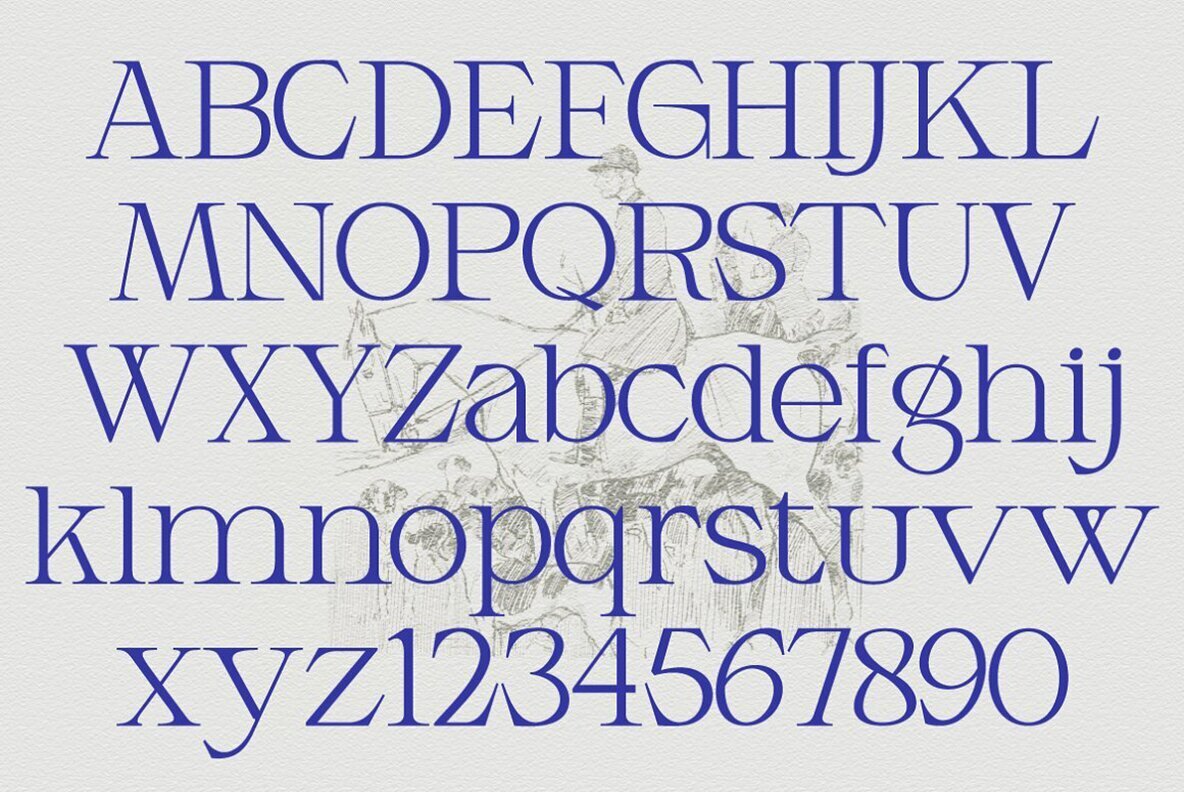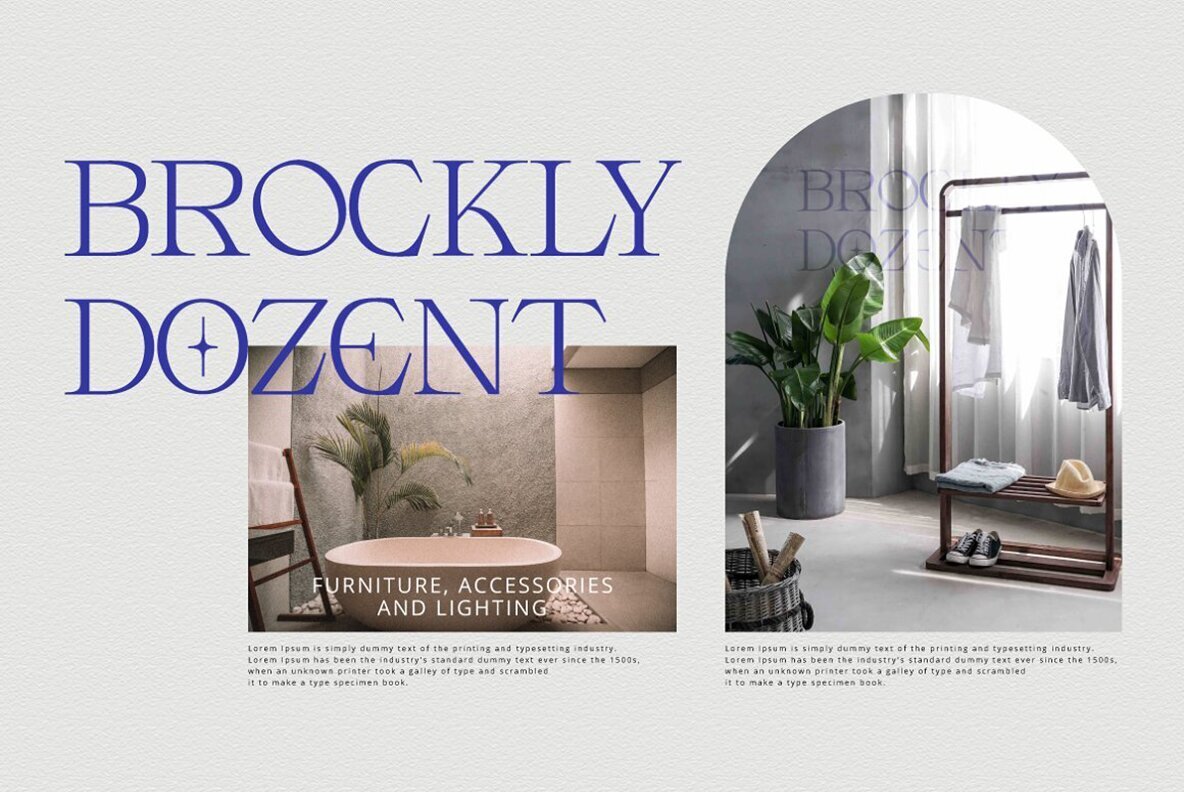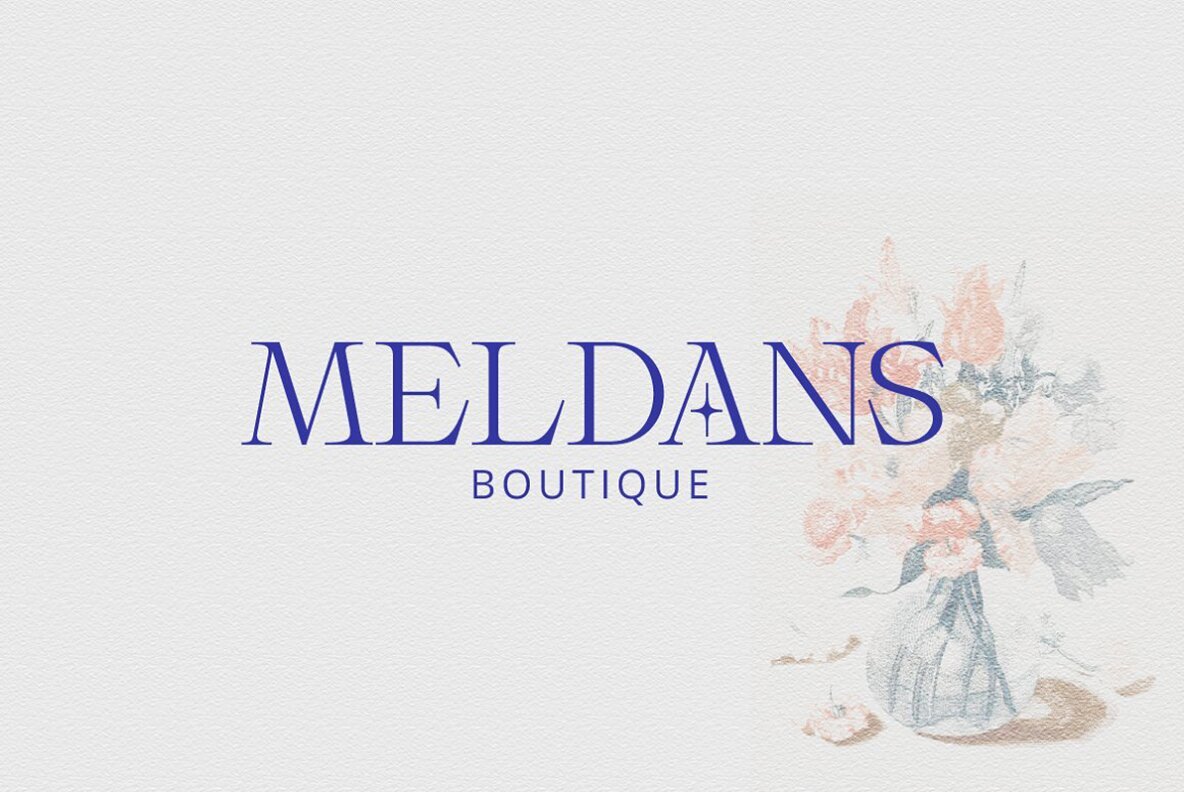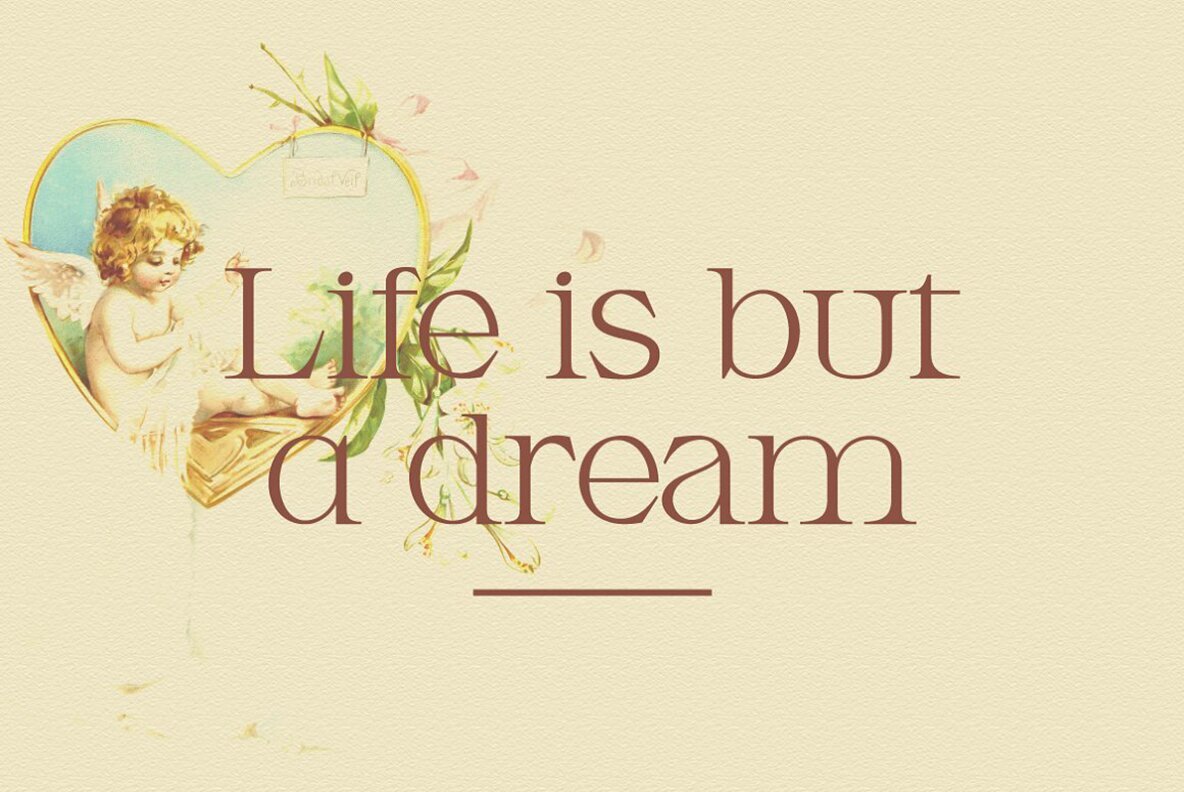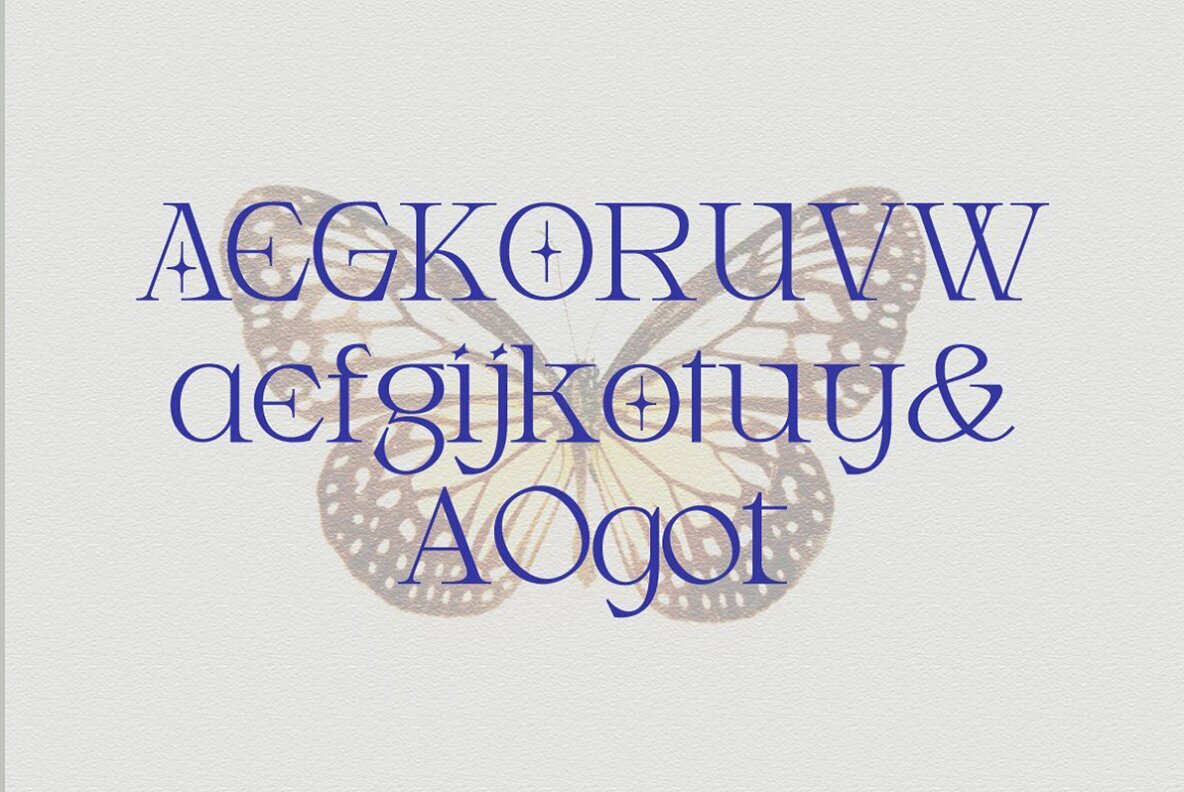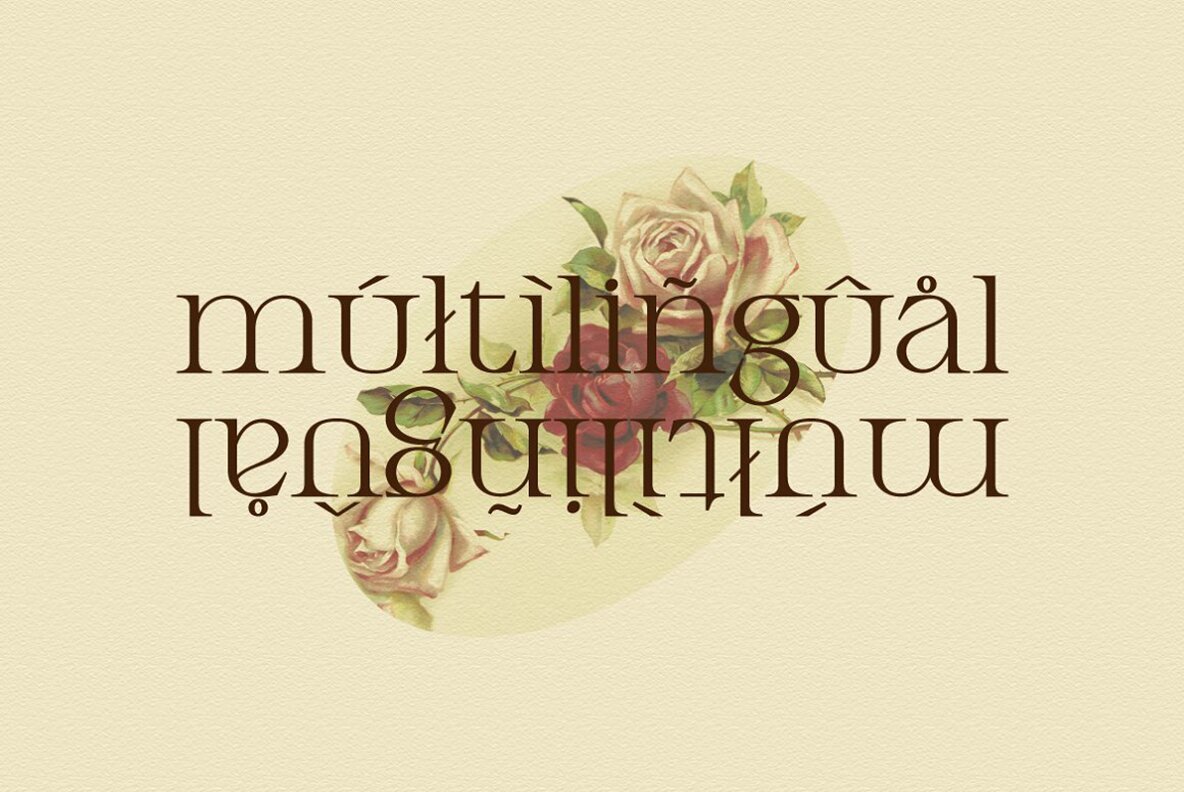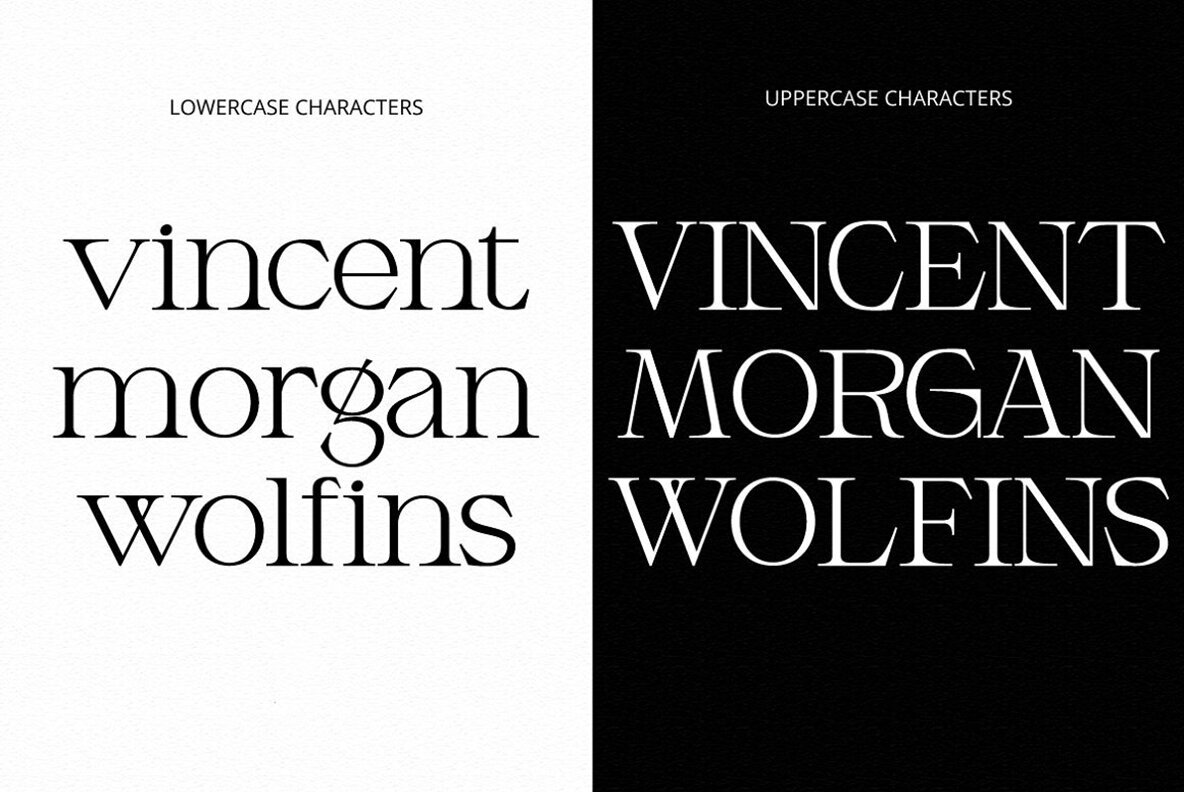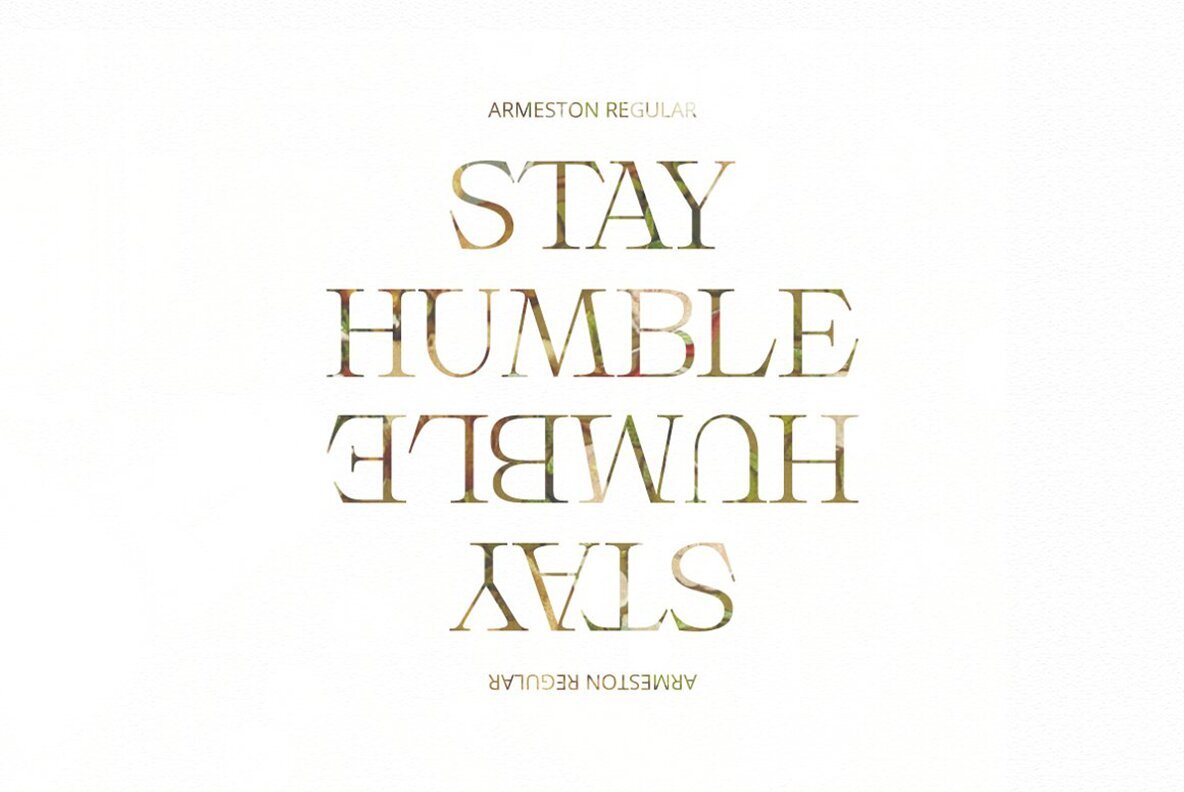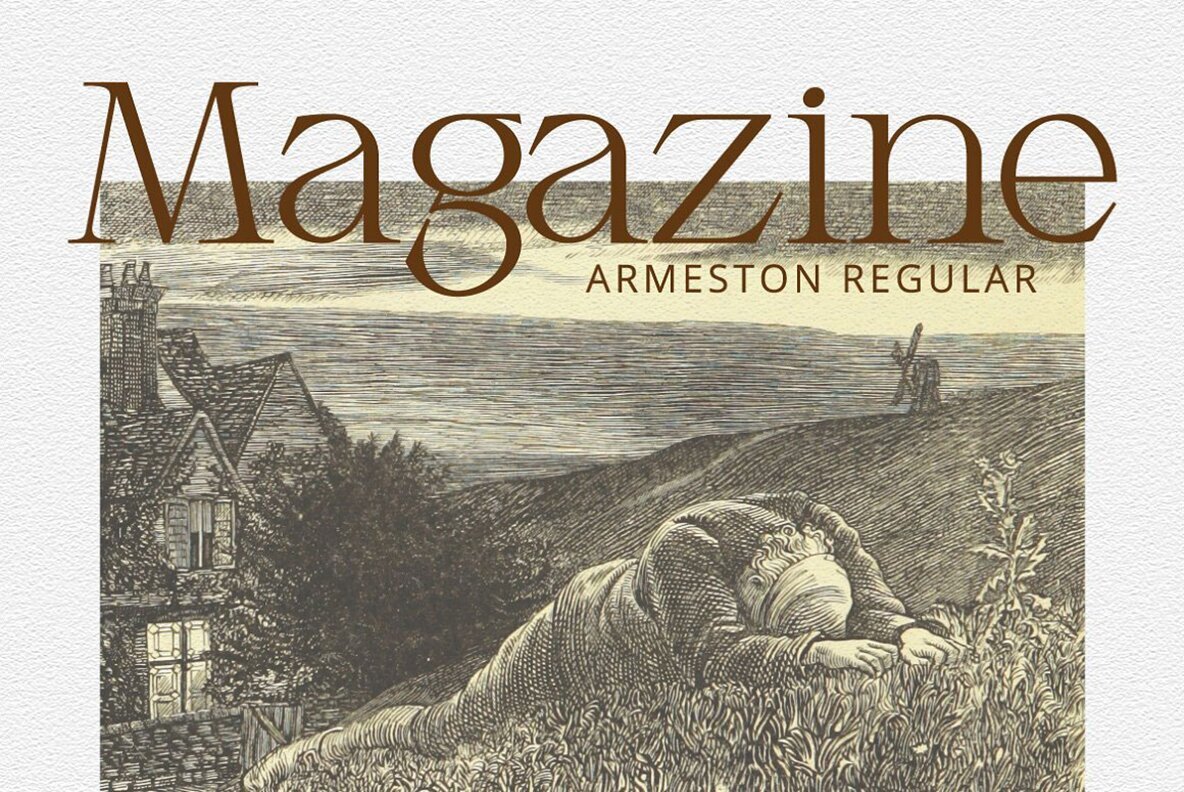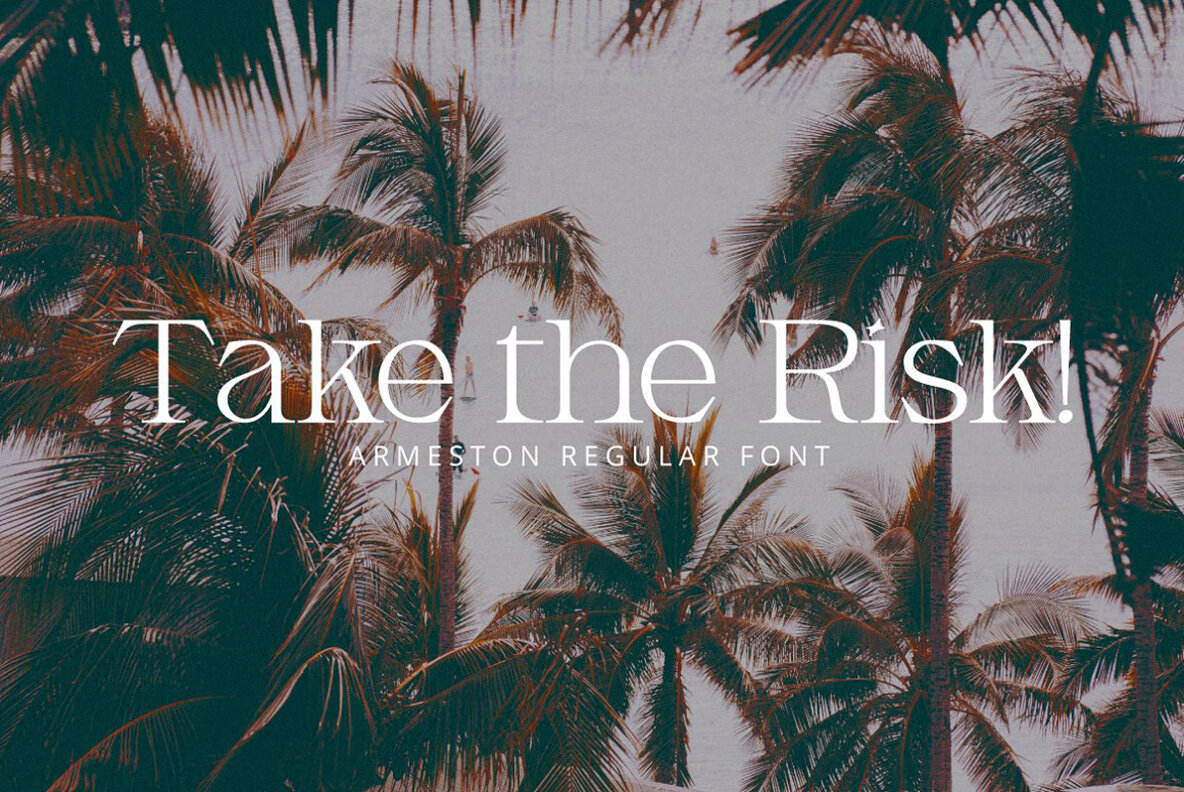
Armeston Font
Armeston Display
With Armeston Display, you're poised to produce stunning typographic designs with ease. It's the ideal choice for adding a sleek touch of luxury to your logo and branding projects, magazine layouts, cosmetic campaigns, fashion promos & more. Additionally its versatile enough to fit any sort of gallery or museum design while also sprucing up stationery items like cards and invitations! With such breadth it can be used in virtually any realm from book/cover titles all the way through special events - why not take advantage today?